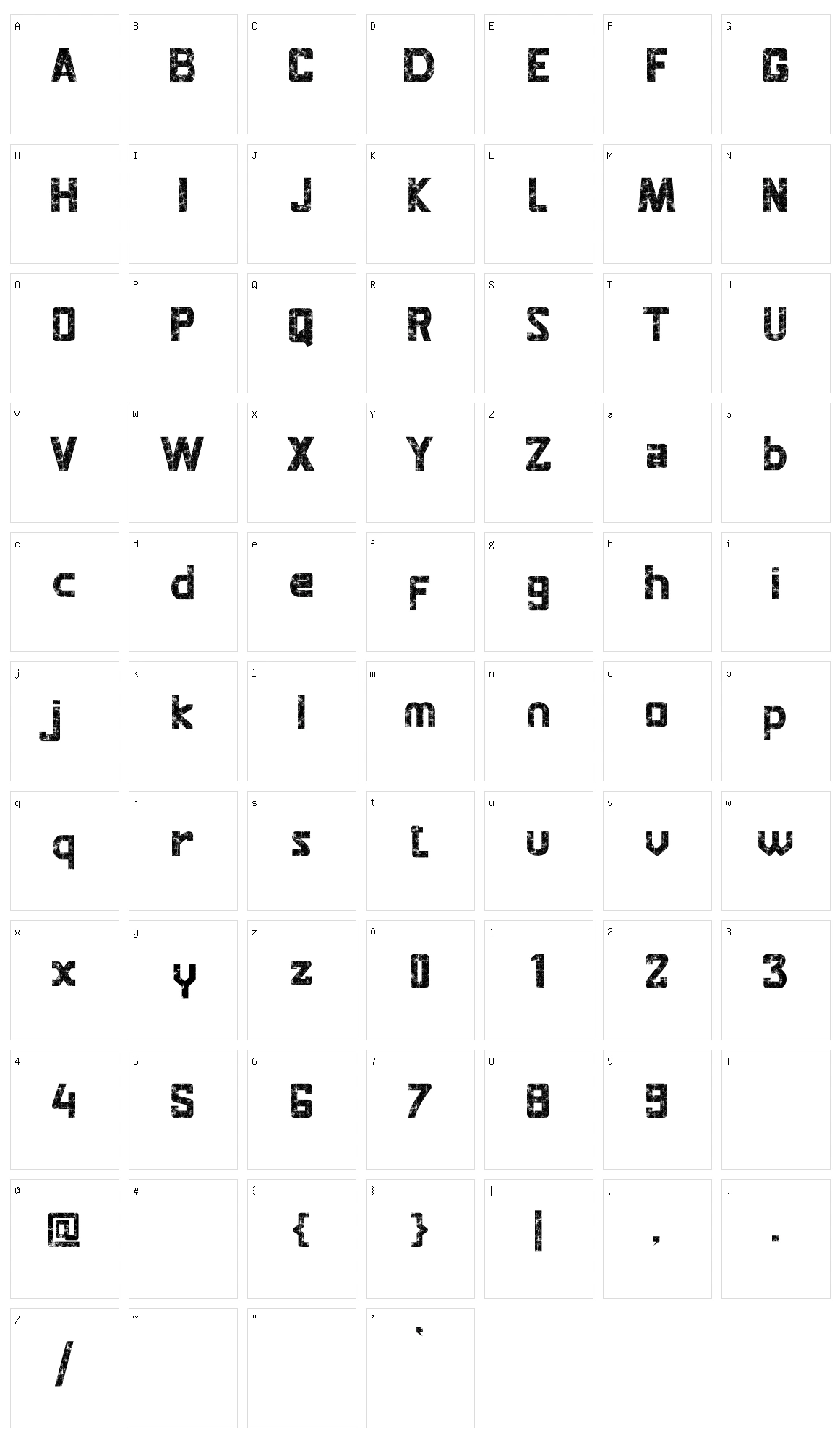
The free font Sleman is carefully designed by YonType Studio, showcasing a thoughtful balance of creativity and usability and falls under the Eroded font style. When you download the ZIP file, it contains only 1005.27 KB of font files, making it lightweight and quick to download. Please review the license details below to understand permitted usage and distribution rights. If license information is not available, we recommend using this font for personal projects only or contacting the author directly for commercial usage permissions.